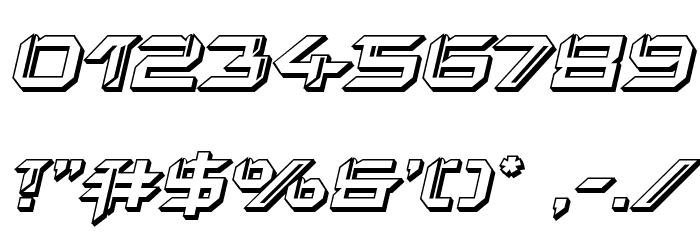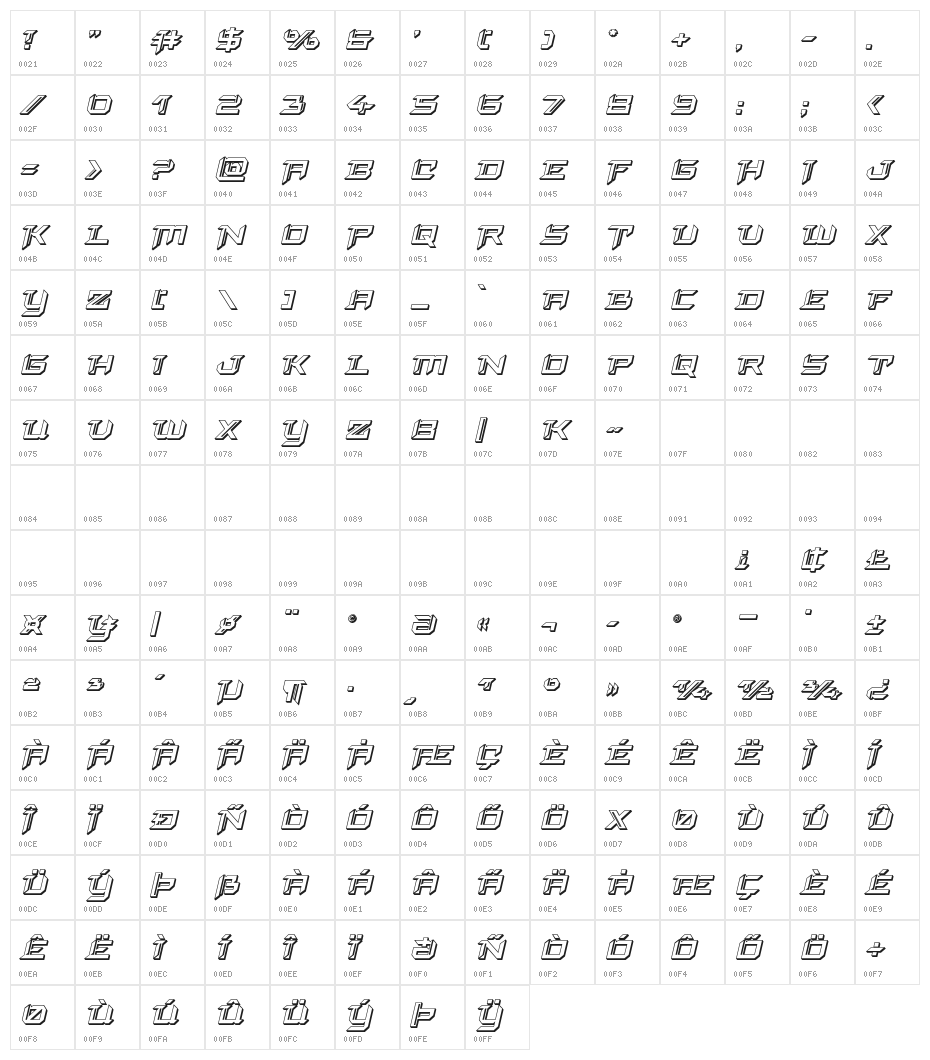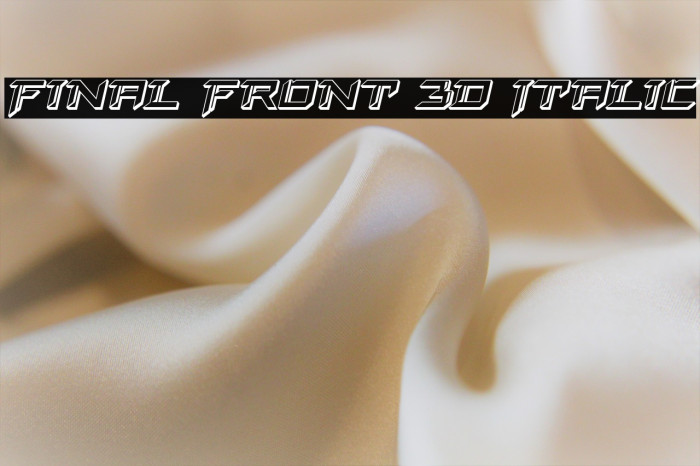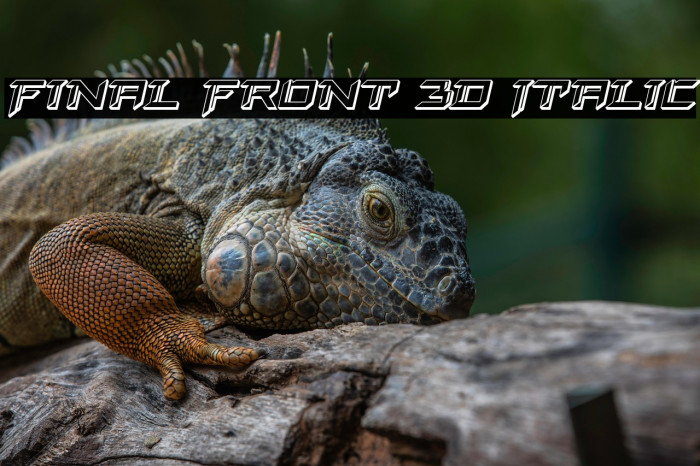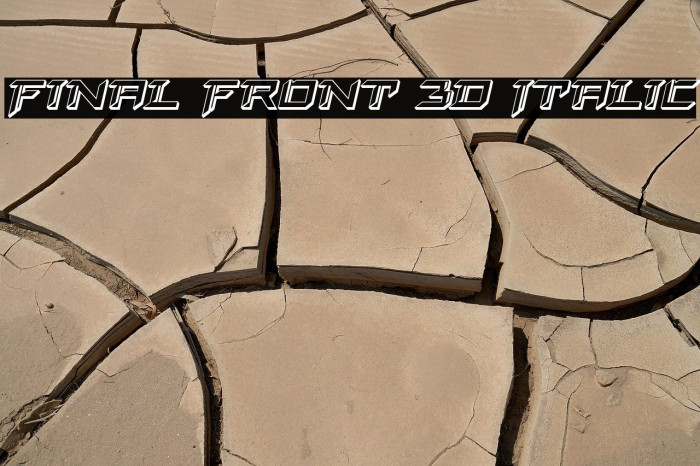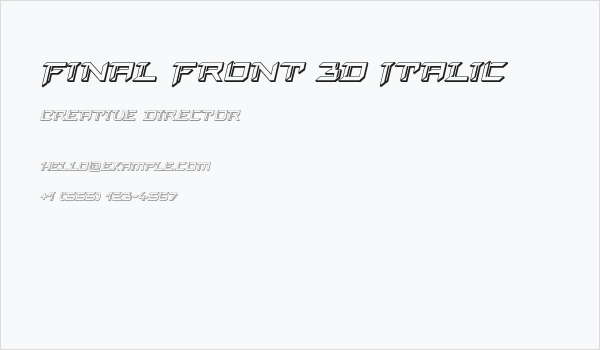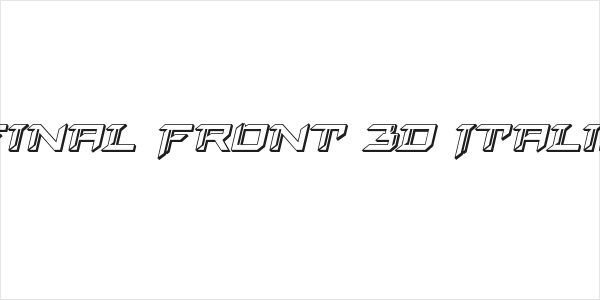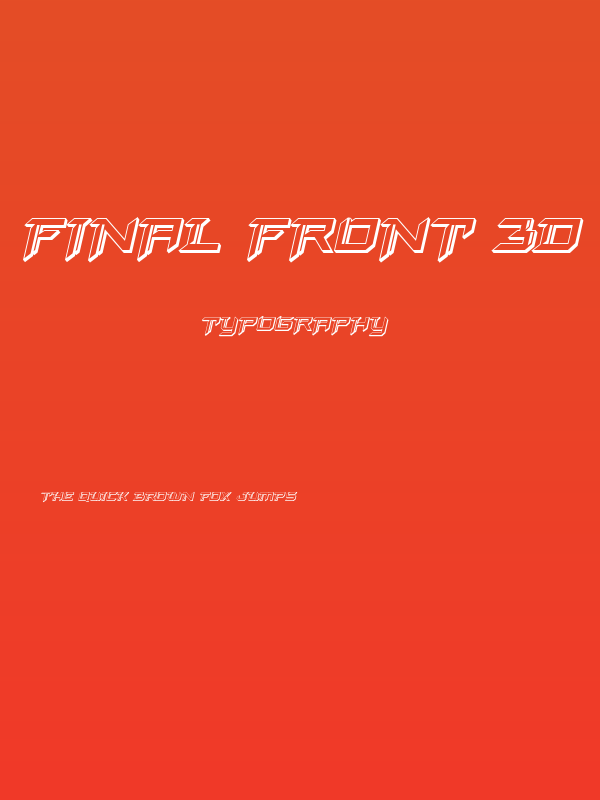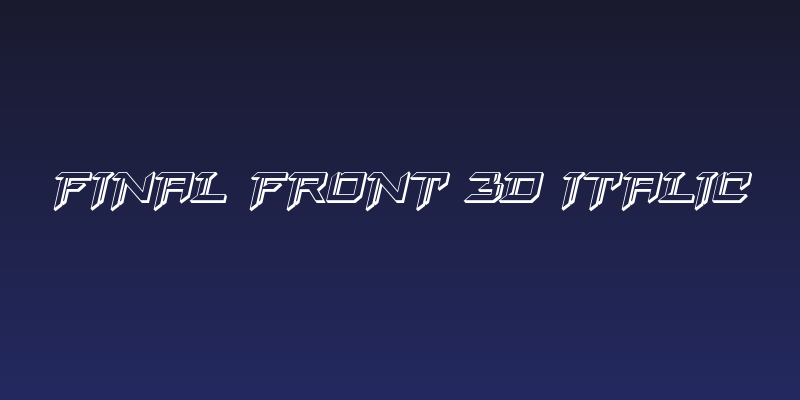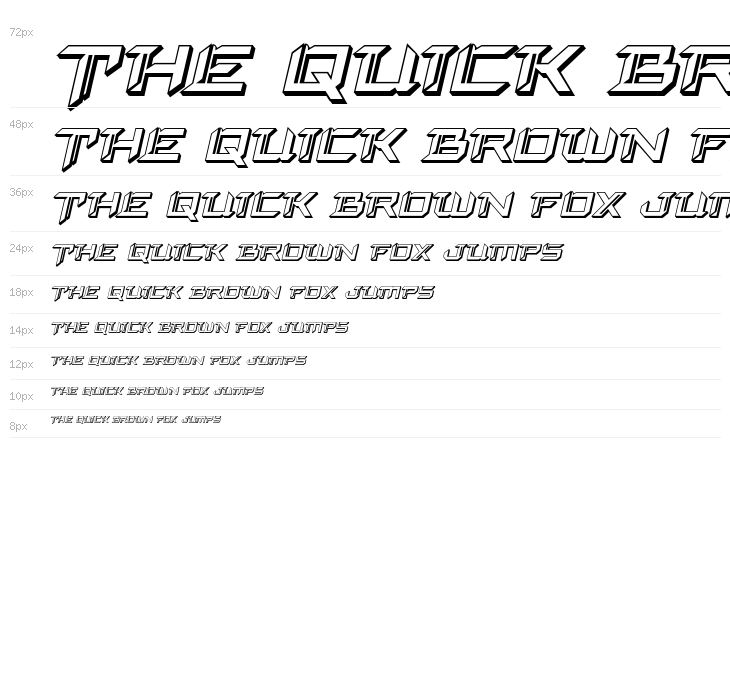
Final Front 3D Italic Font
Final Front 3D Italic Description
This font features a bold, three-dimensional design with a futuristic and dynamic appearance. The letters are italicized, adding a sense of motion and speed. Each character is outlined, creating a layered effect that enhances the 3D illusion. The style is geometric, with sharp angles and clean lines, giving it a modern and edgy look. This font is highly stylized, making it ideal for attention-grabbing headlines or titles. The numbers and special characters maintain the same bold and angular design, ensuring consistency across all elements.
| Proposed Projects | Ideal for video game titles, sci-fi movie posters, tech branding, and sports team logos. |